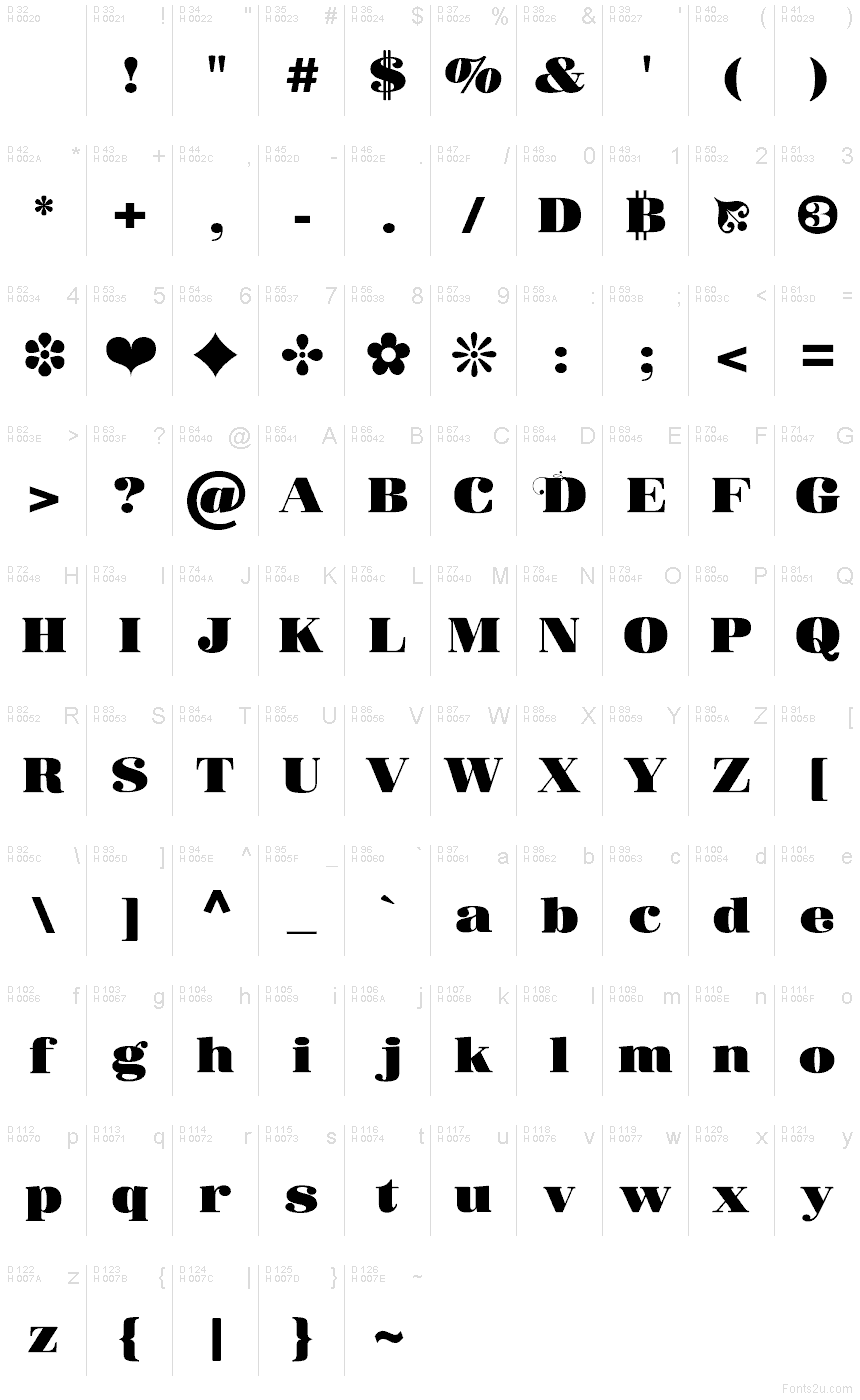
Donaire Black
Donaire Black font by Fernando Haro is a flamboyant and elegant expanded serif with vintage-inspired and ornamental features. This free expressive style is achieved by using softened organics, edgy terminals, curves, inner counters, and refined serifs. The visual contrast between thin strokes and thick ones enhances the dramatic flair.
The extravagant display typeface achieves clear legibility in large text sizes used on branding projects like packaging boxes and labels. Book covers are another place to use it whether they’re mystery books or fantasy stories. Other relevant uses: movie titles, magazines’ headings, posters, invitations/cards (wedding/anniversary).
Donaire is my current interpretation of the classic Didonas, a modern Didona that pays homage to the elegant fat-face fonts that emerged in the late 18th century.
Inspired by modernist and historical aesthetics, I designed Donaire to capture the essence of those typefaces.
Donaire combines the visual power of thick vertical strokes and thin horizontal strokes, accompanied by the delicacy of transitional serifs and droplet endings, achieving a perfect balance between legibility and visual impact.